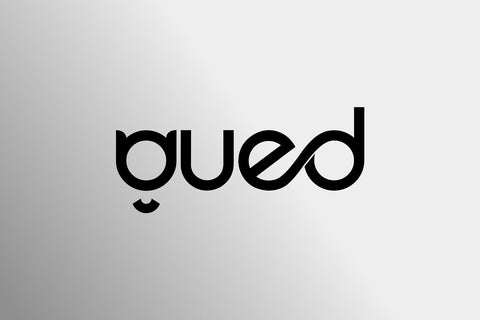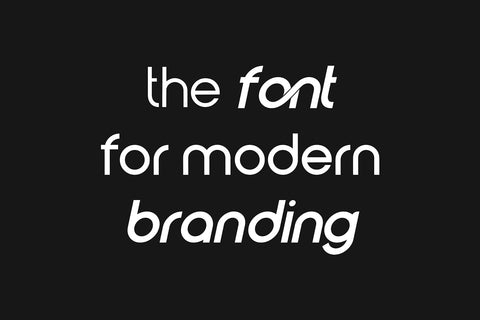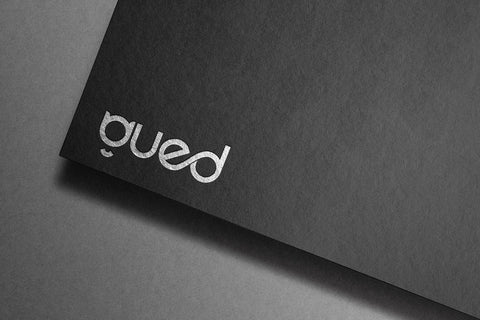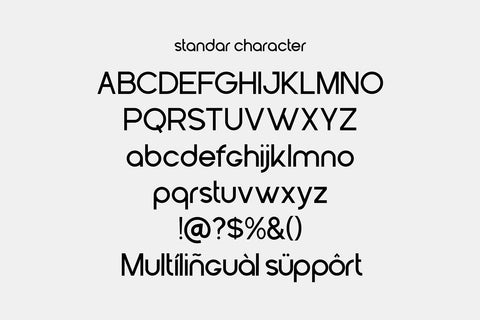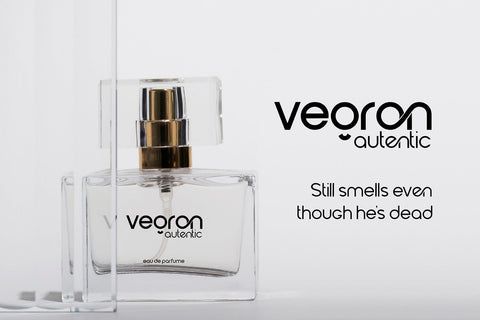
Gued – Modern Minimalist Logo Style Font
Gued is a modern minimalist logo font designed for clarity, precision, and timeless style. Built with elegant geometry and smooth curves, it perfectly balances simplicity and character. Each letter was crafted to create a visual rhythm that feels professional, futuristic, and effortlessly stylish — making Gued a go-to choice for creative designers, branding agencies, and modern businesses.
Every stroke in Gued represents balance. The font’s rounded edges and clean connections provide a sense of motion and confidence, while its minimalist construction keeps everything sleek and readable. Whether used in uppercase or lowercase, Gued maintains perfect proportion and harmony, giving your designs a refined, polished look.
The inspiration for Gued comes from modern architecture, high-tech innovation, and luxury identity design. It’s the kind of font that looks equally beautiful on a tech startup logo, a minimalist fashion label, or an elegant digital interface. Its futuristic yet human tone makes it flexible across various industries — from architecture studios to creative agencies, clothing brands, and modern product packaging.
Perfect for:
- Professional logos and monograms
- Branding systems and corporate identity
- Product packaging, name cards, and stationary design
- Modern websites, UI/UX layouts, and social media graphics
- Editorial titles, posters, and minimalist typography
Why Designers Love It
Gued is a typeface that speaks without shouting. Its calm, modern presence elevates any design it’s used in. The subtle connection between each character creates a sense of unity — perfect for brands that value simplicity, clarity, and innovation. Unlike traditional sans-serif fonts, Gued introduces personality through subtle geometric details that make your branding unique while keeping it clean and professional.
It’s more than just a font; it’s a visual identity system. Gued’s simple and elegant forms adapt to any medium — from printed logos and signage to digital platforms and packaging mockups. Its minimalist nature allows designers to express sophistication with minimal visual noise, creating timeless aesthetics that never go out of style.
Technical Features:
- Modern minimalist design with geometric balance
- Smooth character flow and professional readability
- Optimized for both print and digital use
- Works perfectly in large titles and small details
- Stylish, clean, and easy to pair with any brand tone
If you’re looking for a modern font that captures elegance, professionalism, and timeless minimalism — Gued is the perfect match. It’s simple yet full of soul, clean but not cold, elegant yet bold enough to make an impression.